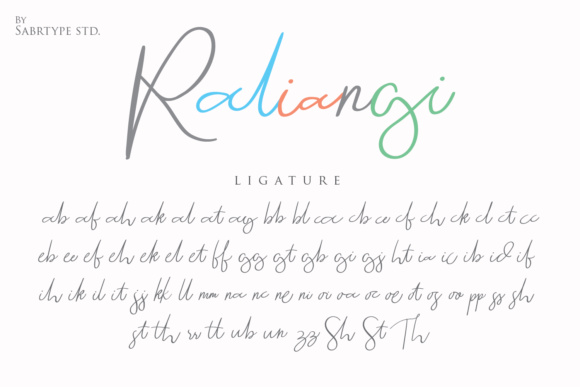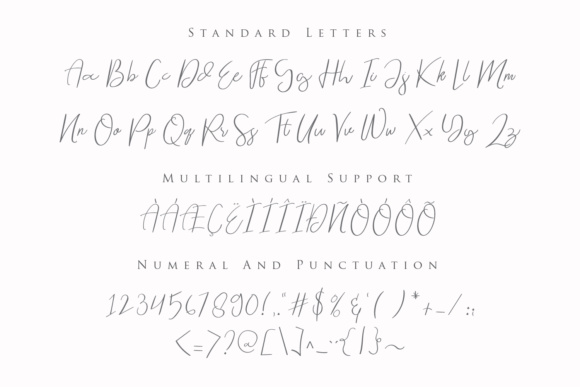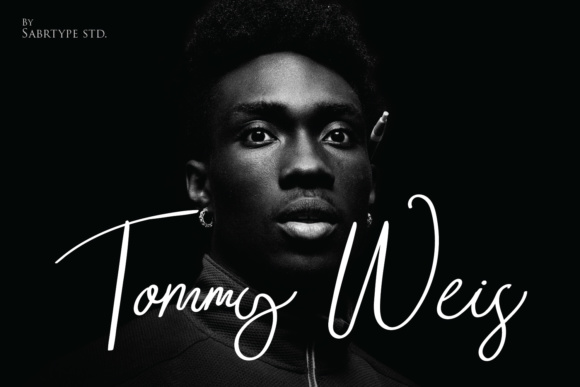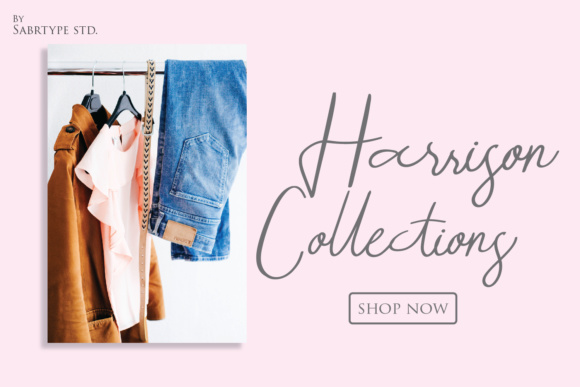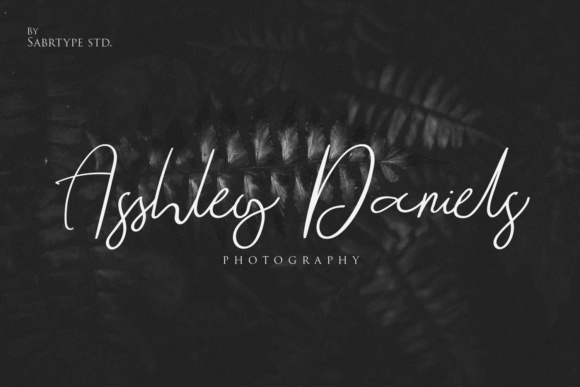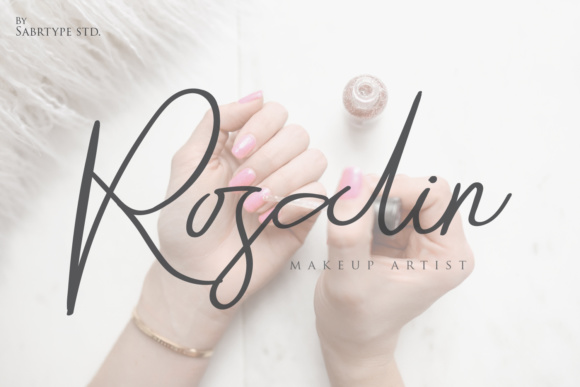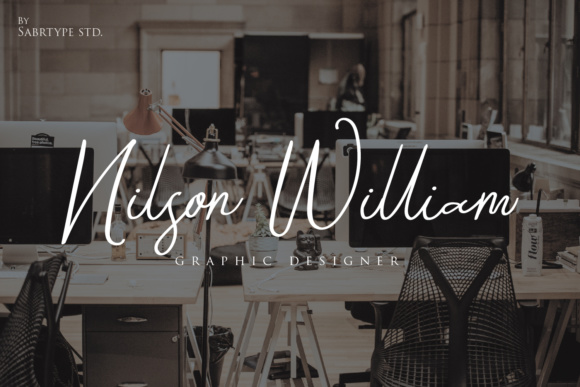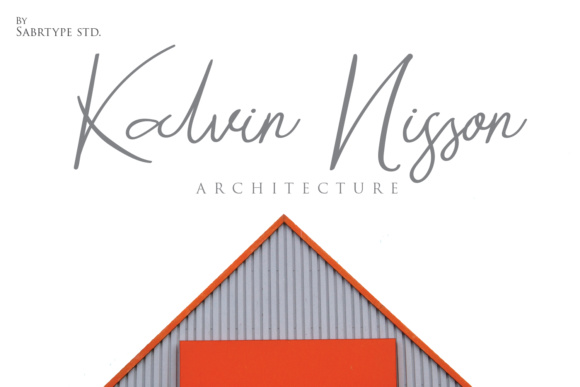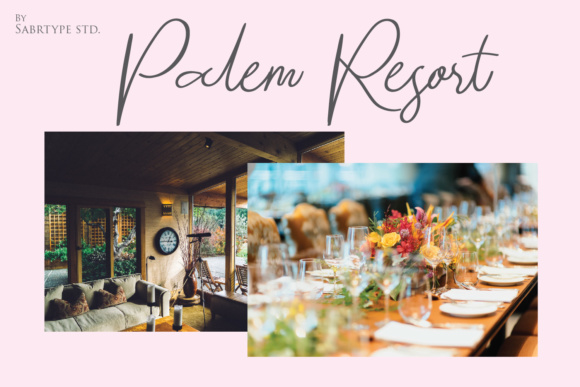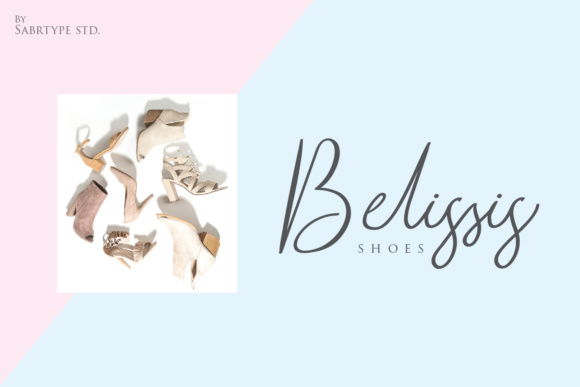
Raliangi Font
About Raliangi Font
The Raliyangi is a modern script font. It’s perfect for signatures, stationery, logos, typography quotes, magazine or book covers, website headers, and much more!